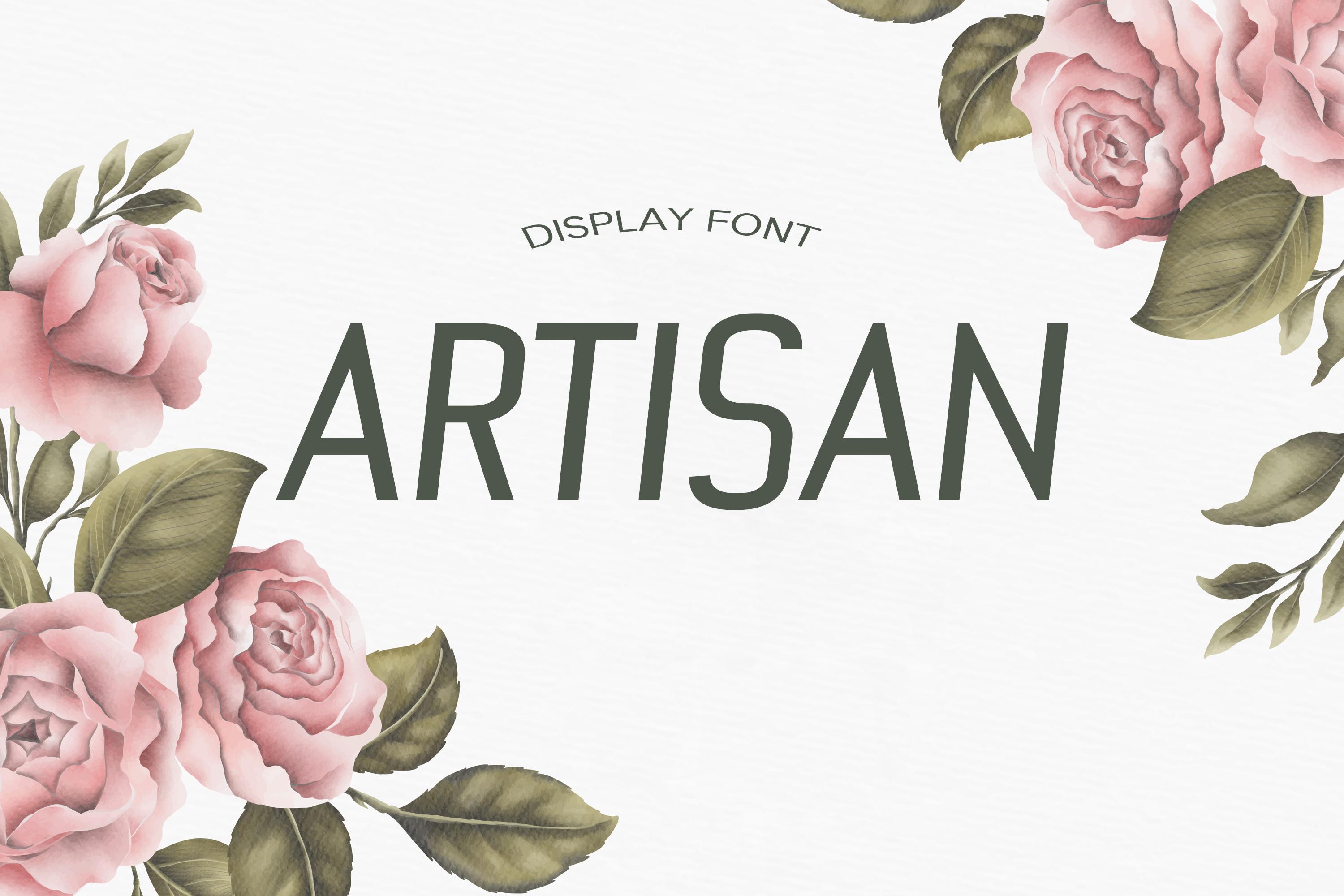
Artisan Font Description
Artisan is an all caps, display font that is striking and grabs your attention because of its smooth lines making it incredibly readable and great to use in any design! Perfect for branding projects, striking posters and as a unique display font for web or app development.